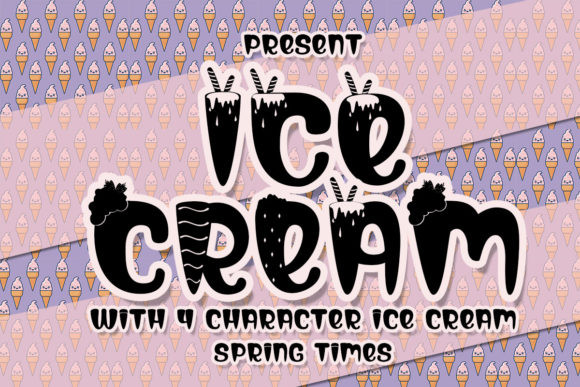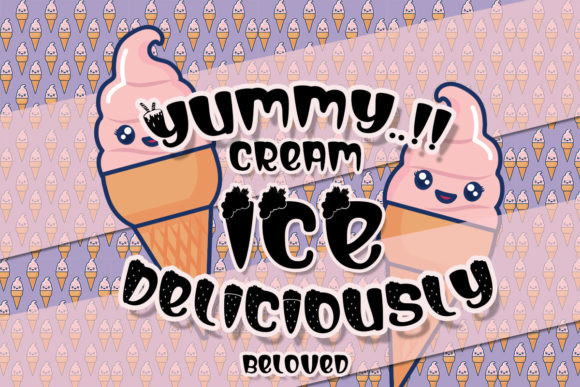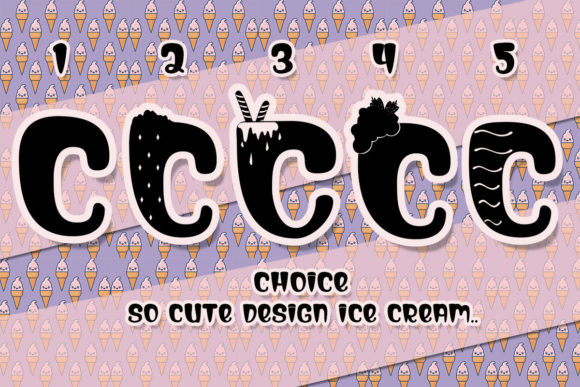
Ice Cream Font
Ice Cream is a spectacular display font with a sweet theme. Get creative with its childlike playfulness, and use it to brighten up any kids and school project!